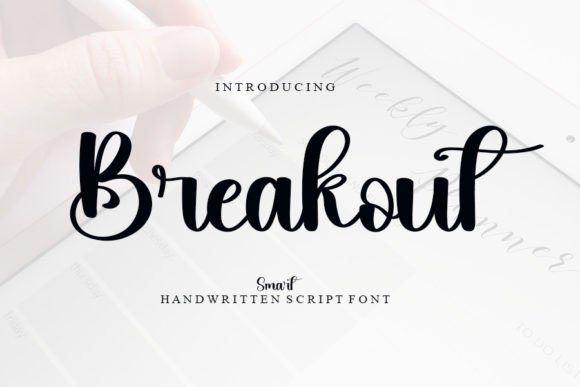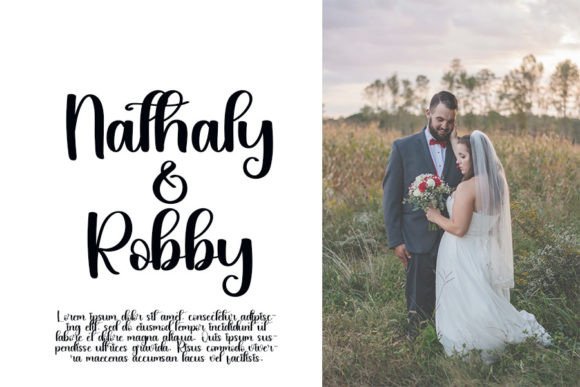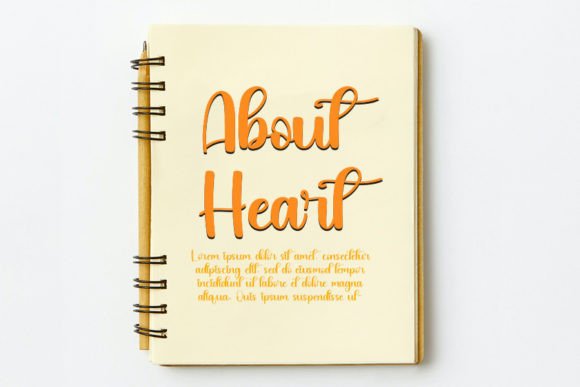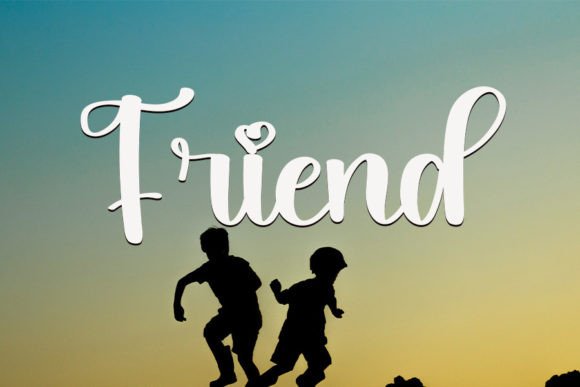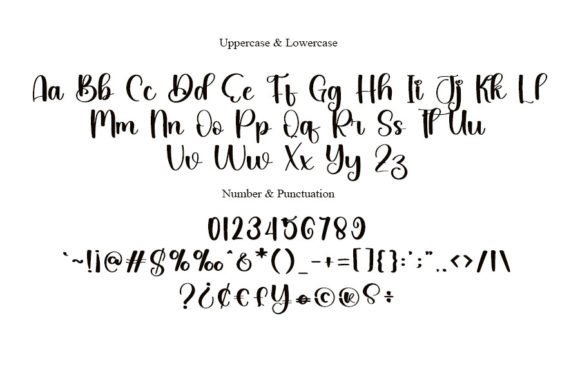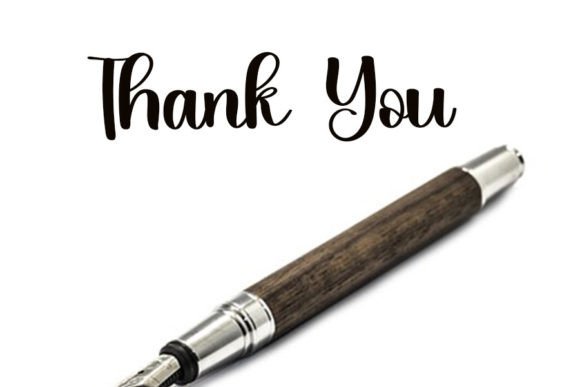
What Is Breakout Font?
Breakout Font is a trendy handwritten script designed to bring sophistication and style to your projects. Each letter combines smooth curves and refined strokes, creating a modern aesthetic inspired by timeless calligraphy. Because of its elegant character, this font is perfect for designs that need a polished, high-end feel.
You will see how effortlessly Breakout elevates any idea into a stunning visual statement.
Breakout is a versatile font you can apply across many creative contexts. For example, it’s ideal for wedding invitations and luxury stationery. The flowing script adds a romantic, upscale impression that guests will appreciate.
In addition, it works beautifully for logos and branding. Whether you design for boutiques, beauty brands, or creative businesses, Breakout helps your identity feel unique and professional.
You can also use it for social media graphics and quotes. The stylish, contemporary letters make your posts stand out instantly.
When you create product packaging and labels, Breakout adds an artisanal look that feels premium and authentic.
Moreover, it’s perfect for website headers, certificates, posters, and personal projects. Even minimalist layouts become more dynamic with this font.
Why Should You Choose Breakout Font?
There are many reasons to consider Breakout for your next project. First, it’s easy to read, even with its artistic flourishes. Whether you use it for large headlines or smaller text, every letter remains clear and balanced.
Also, Breakout pairs nicely with clean serif or sans-serif fonts. This helps you create cohesive, modern layouts effortlessly.
Because it’s fully PUA encoded, you can access all glyphs, swashes, and alternates without extra software. Customizing your text becomes quick and smooth.
Designers love that it looks polished right out of the box, saving time while delivering professional results.
Breakout Font brings luxury and personality to every project. For example, when you want your designs to feel refined and memorable, this font makes it simple.
Even the simplest layouts look more engaging with Breakout’s flowing handwritten style. Whether you create branding, invitations, or social media posts, your work will stand out beautifully.
Using a premium script font also shows your dedication to quality and detail. This builds trust with your audience and makes your designs more impactful.
Breakout Font is more than just a typeface—it’s a creative tool that helps you communicate with clarity and elegance. From logos and invitations to packaging and quotes, this font adapts easily and leaves a lasting impression.